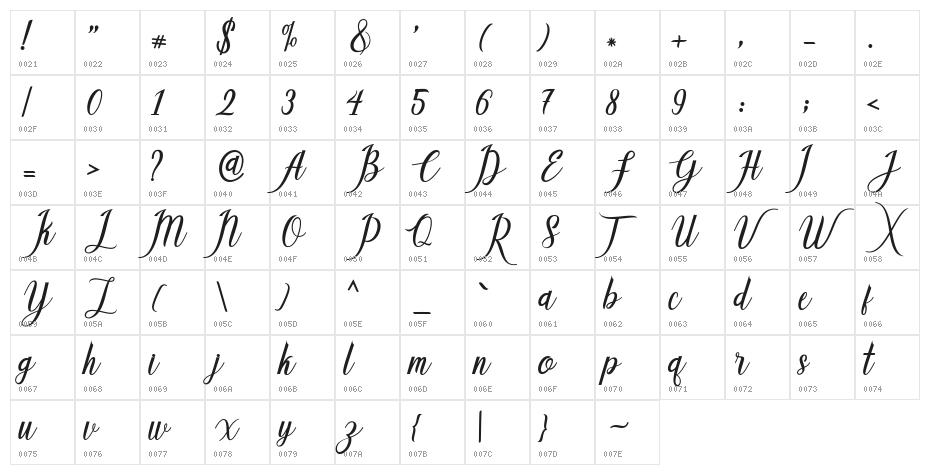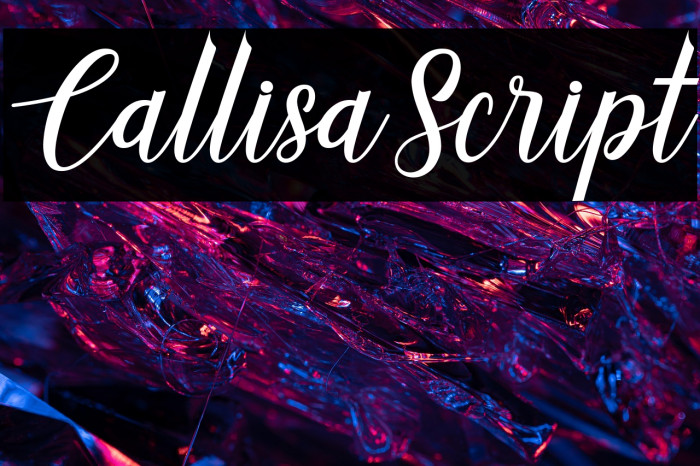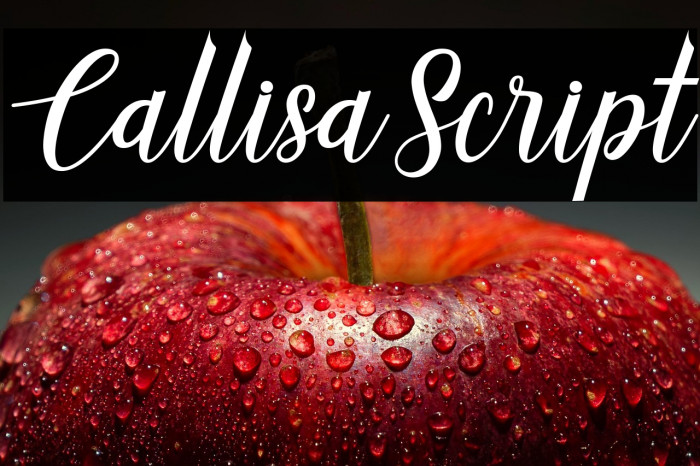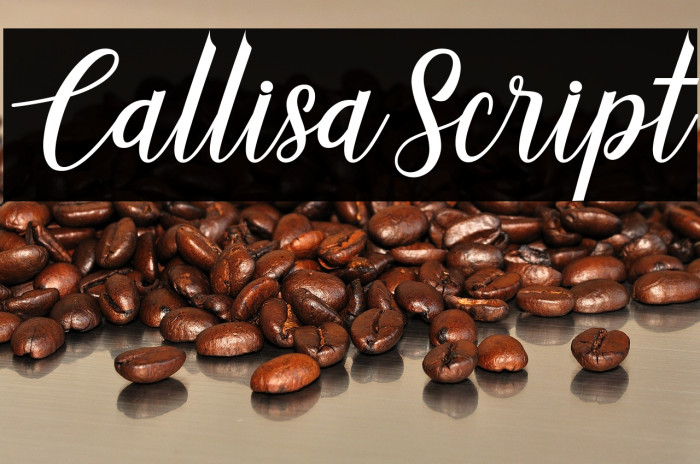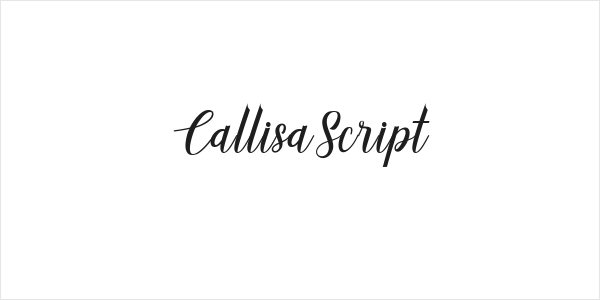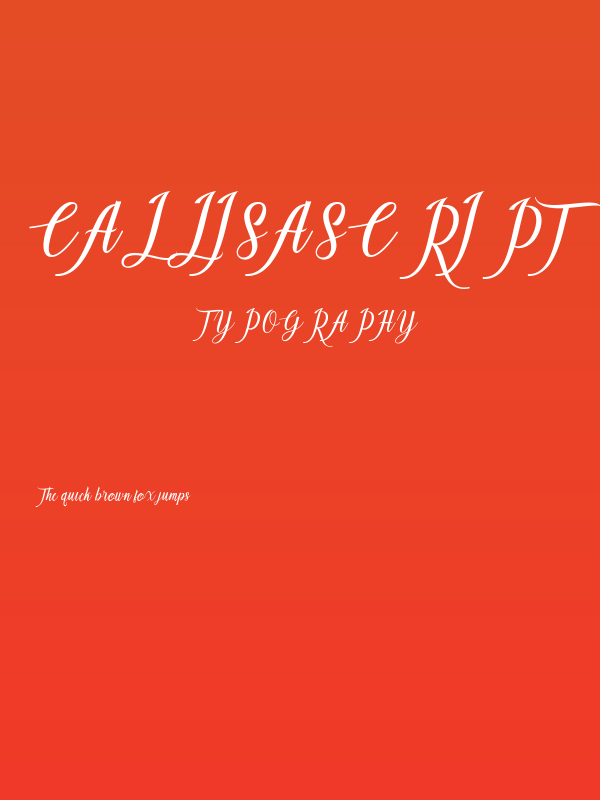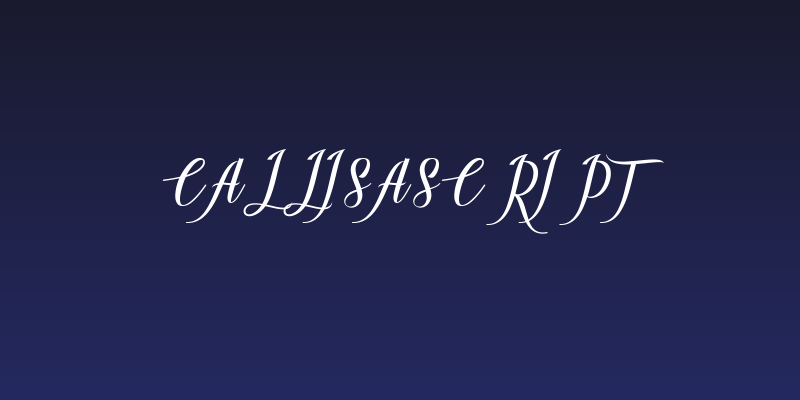
CallisaScript Font
CallisaScript Description
This elegant script font features flowing, cursive letters with a refined and sophisticated appearance. The uppercase letters are tall and graceful, with sweeping curves and delicate flourishes that add a touch of elegance. The lowercase letters maintain a consistent flow, enhancing readability while preserving the script's artistic flair. The numerals are stylish and complement the overall design, making them suitable for decorative purposes. The special characters are thoughtfully designed, adding versatility to the font's use. This script font is ideal for projects that require a touch of class and sophistication.
| Overall Style | Elegant, Sophisticated |
| Use Case | Logos, Invitations, Decorative text |
| Proposed Projects | Wedding invitations, elegant branding, greeting cards, and luxury product packaging. |